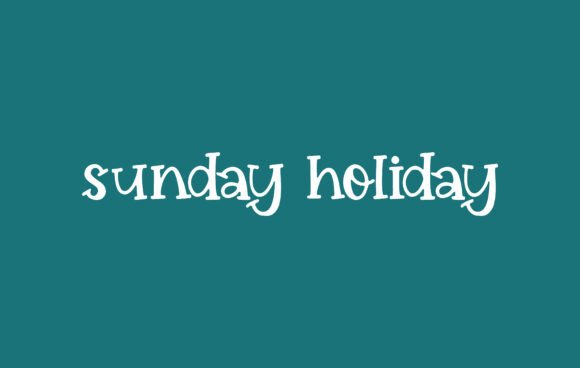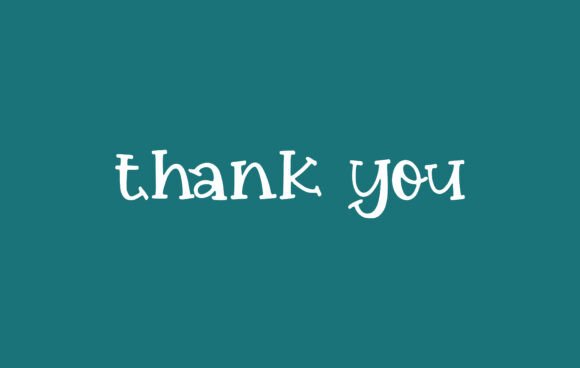
Discover the Charm of Andres Font: Elevate Your Designs with a Romantic Touch
In the world of typography, a well-crafted font can make all the difference in bringing your creative vision to life. Andres Font is a stunning example of an authentic handwritten font that adds a romantic touch to any design project. With its unique blend of elegance and playfulness, this font is poised to become a favorite among designers and crafters alike.
The Story Behind Andres Font
Andres Font is more than just a collection of letters; it’s a carefully crafted tool designed to help you express your creativity. Its authentic handwritten style gives it a personal and approachable feel, making it perfect for a wide range of applications. Whether you’re working on a magazine headline, social media post, branding campaign, wedding invitation, or card, Andres Font is the ideal choice.
What Makes Andres Font Stand Out?
- Legibility and Versatility: One of the standout features of Andres Font is its exceptional legibility. This font is designed to look great not only as a title but also as body text, offering you the flexibility to use it across various design elements.
- Romantic and Authentic: The romantic touch infused in Andres Font sets it apart from more generic fonts. Its authentic handwritten style adds a layer of warmth and personality to your designs, making them more engaging and relatable.
- Ease of Use: Andres Font is crafted to be user-friendly, allowing you to seamlessly integrate it into your projects. Whether you’re a seasoned designer or a DIY enthusiast, you’ll find this font easy to work with.
Applications of Andres Font
The versatility of Andres Font makes it suitable for a myriad of design projects. Here are some of the areas where this font truly shines:
- Magazine Headlines: Add a touch of sophistication and charm to your magazine covers or article titles with Andres Font.
- Social Media: Elevate your social media posts and stories with a font that captures attention and conveys emotion.
- Branding: Use Andres Font to create a unique and memorable brand identity that stands out from the crowd.
- Wedding Invitations and Cards: Add a romantic and personal touch to your wedding invitations, greeting cards, and other stationery with this beautiful font.
Tips for Using Andres Font Effectively
To make the most of Andres Font, consider the following tips:
- Mix and Match: Experiment with different sizes and colors to create visual hierarchy and add depth to your designs.
- Pair with Other Fonts: Andres Font pairs well with a variety of other fonts. Try combining it with a sans-serif font for a modern contrast or with another script font for a more dramatic effect.
- Play with Colors: While the font itself adds a romantic touch, the right color choice can enhance its beauty. Pastels, rich tones, and metallic colors can complement Andres Font beautifully.
Andres Font is a gem for designers and crafters looking to infuse their projects with a romantic and authentic touch. Its legibility, versatility, and unique style make it an excellent choice for a wide range of applications. By incorporating Andres Font into your design toolkit, you’ll be well on your way to creating captivating and memorable pieces that resonate with your audience. So why wait? Explore the creative possibilities with Andres Font today and take your designs to new heights.